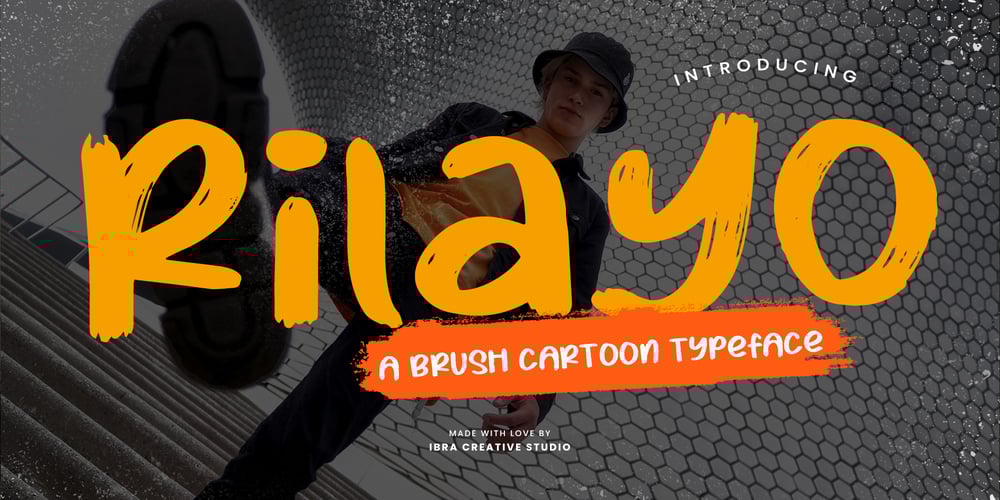
Rilayo
Rilayo font
Rilayo Font Family was designed by Roisatul Azizah and published by IbraCreative. Rilayo contains 1 styles and family package options. Rilayo – A Brush Cartoon TypefaceRilayo, a playful brush cartoon typeface, brings a sense of whimsy and charm to any project. With its bold strokes and lively curves, each letter exudes a dynamic energy that is reminiscent of hand-drawn cartoons. Perfect for adding a touch of personality to children’s books, comic strips, or playful designs, Rilayo captures the essence of fun and creativity, inviting viewers to embark on a delightful visual journey.Rilayo is perfect for branding projects, logo, wedding designs, social media posts, advertisements, product packaging, product designs, label, photography, watermark, invitation, stationery, game, fashion and any projects.Fonts include multilingual support for; Afrikaans, Albanian, Czech, Danish, Dutch, English, Estonian, Finnish, French, German, Hungarian, Italian, Latvian, Lithuanian, Norwegian, Polish, Portuguese, Slovak, Slovenian, Spanish, Swedish.